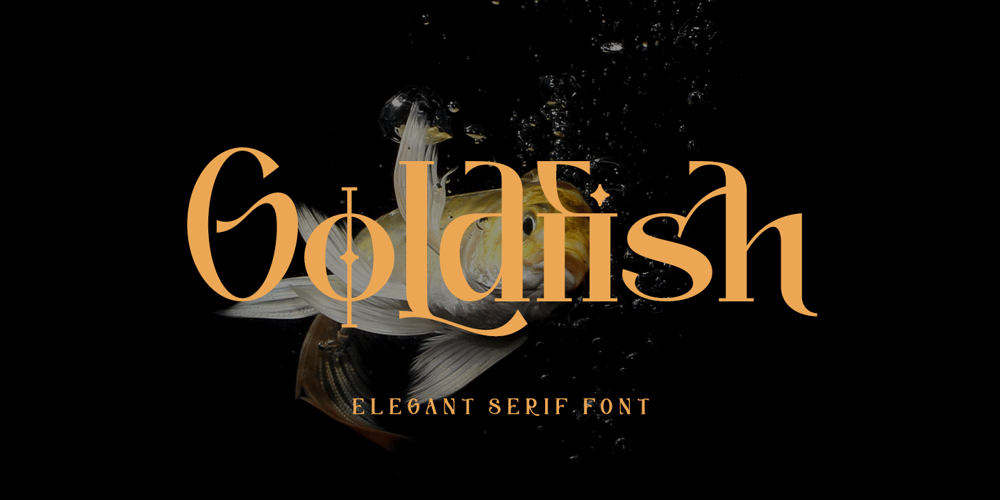
Goldfish Font Family was designed by Thomas Aradea and published by Letterara. Goldfish contains 2 styles and family package options. Goldfish is a modern and classic serif typeface with a unique style and modern look. Fall in love with its incredibly stylish and glam vibe and use it to create spectacular designs!This font is PUA encoded which means you can access all of the glyphs.